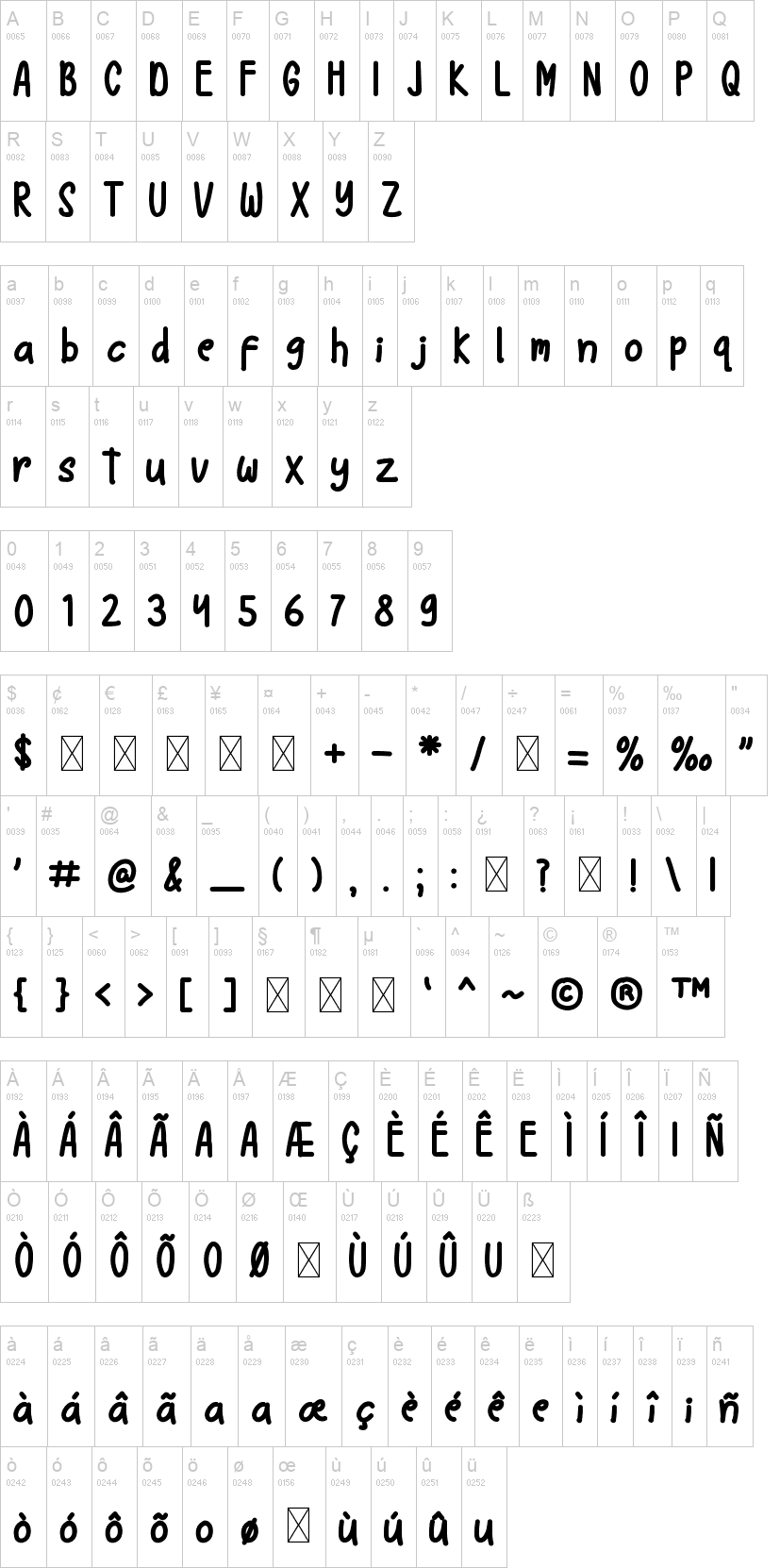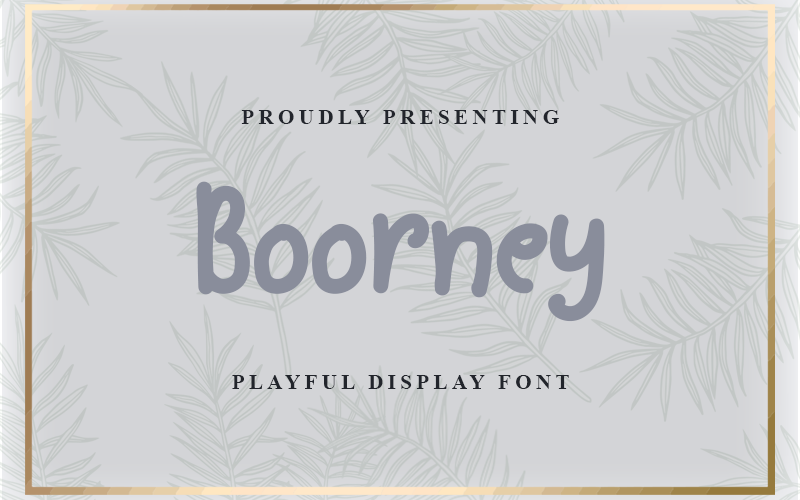
Note of the authorBoorney is a Playful Display Font. This font is perfect for all of your crafting projects, svg designs, branding, logos, stickers, cricut projects and more! This Font also has a lot of International Characters that would be best used in programs that support opentype features. You can also access these ligatures through your font book (Mac) or character map (windows).